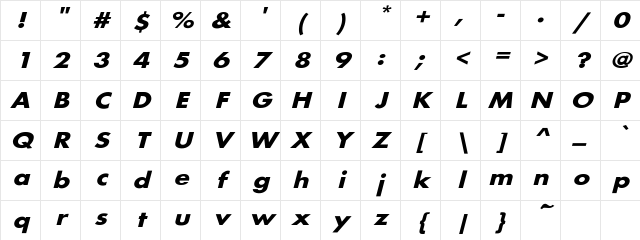
Complete Sulley Extended Oblique Bold Bold glyph index. Displaying only characters natively supported by Sulley Extended Oblique Bold Bold font.
Sulley Extended Oblique Bold is a composed and adaptable typeface that performs quietly and consistently across a wide range of design contexts. The slanted form adds forward momentum and visual energy. Its bold stroke weight gives it real presence on the page.